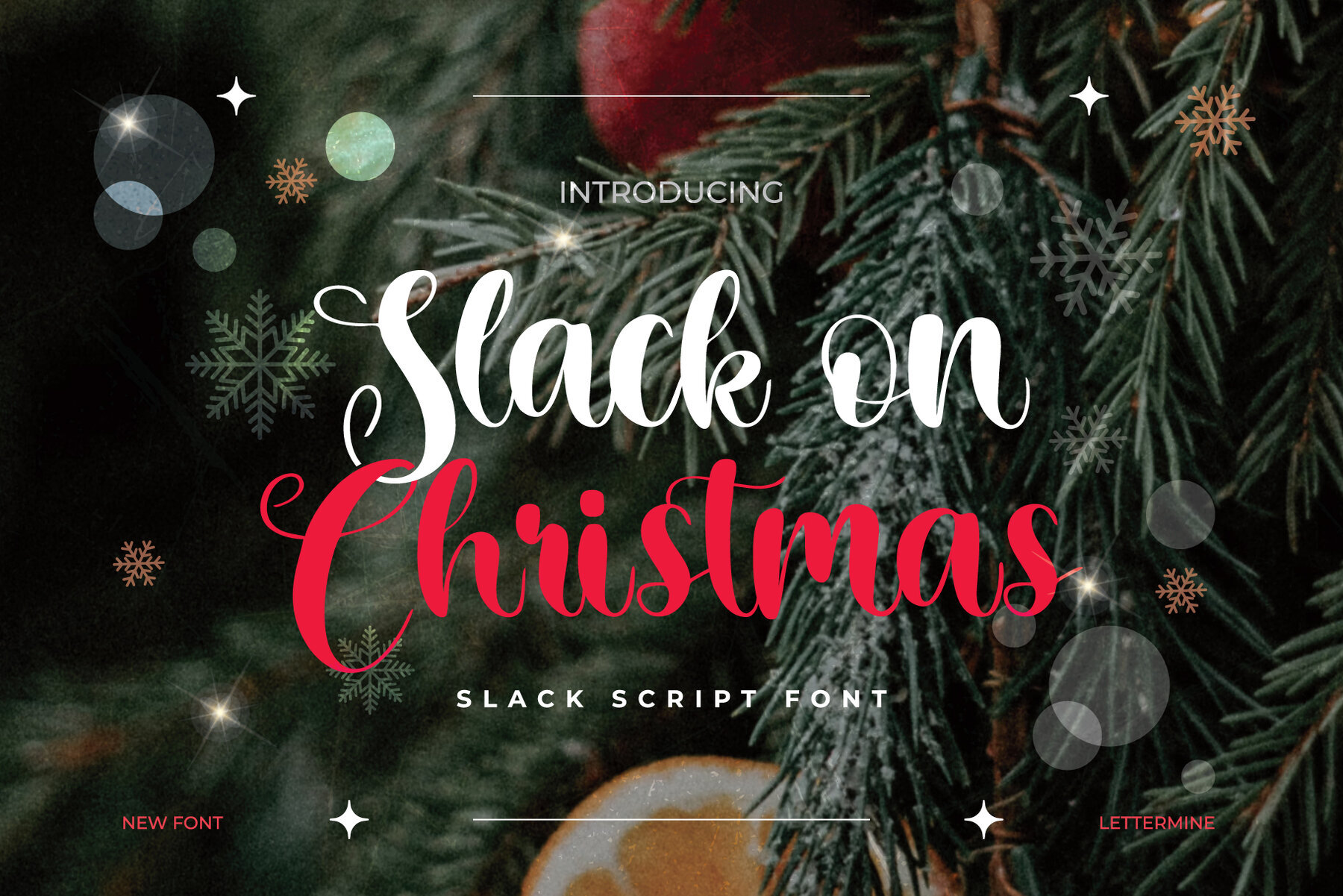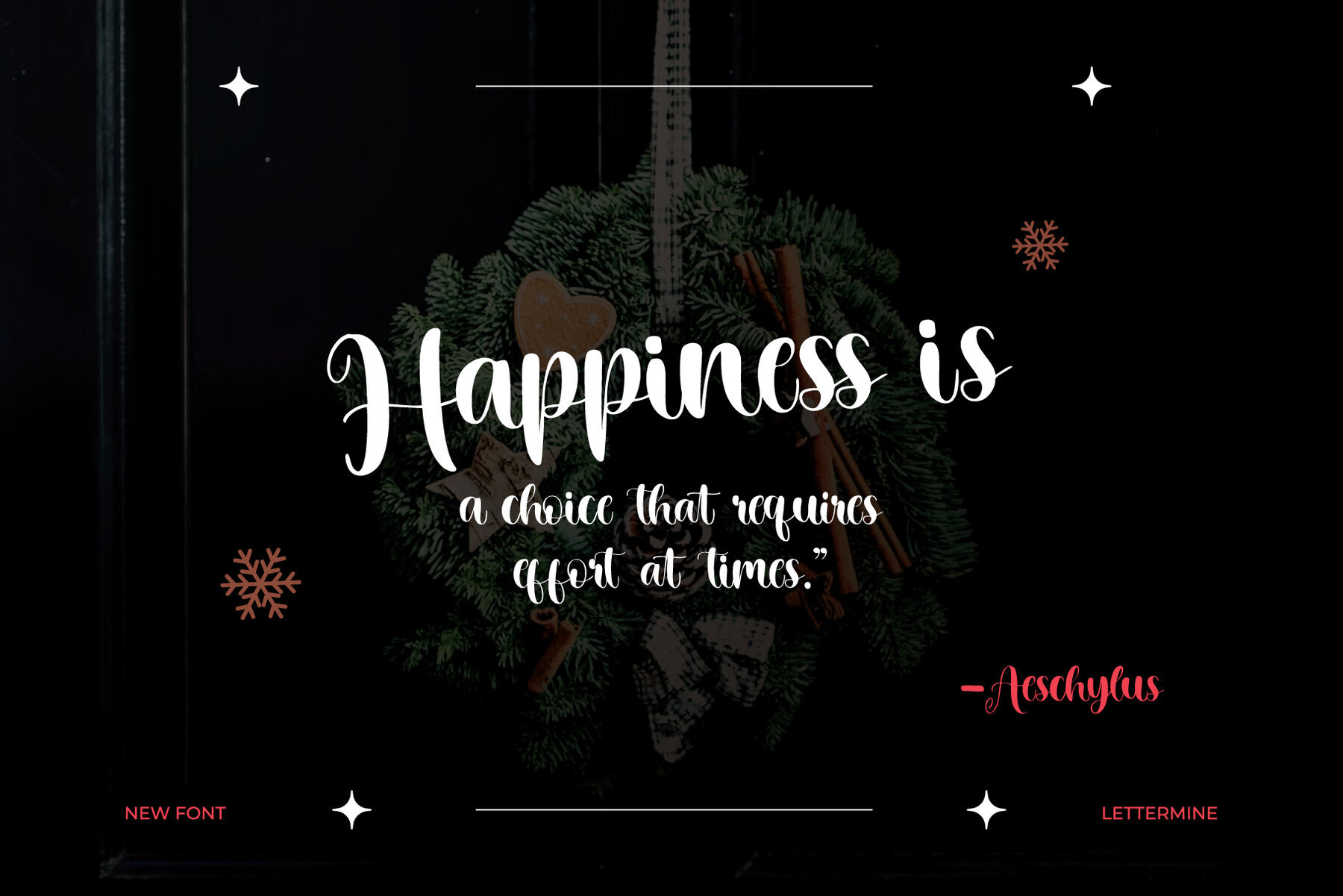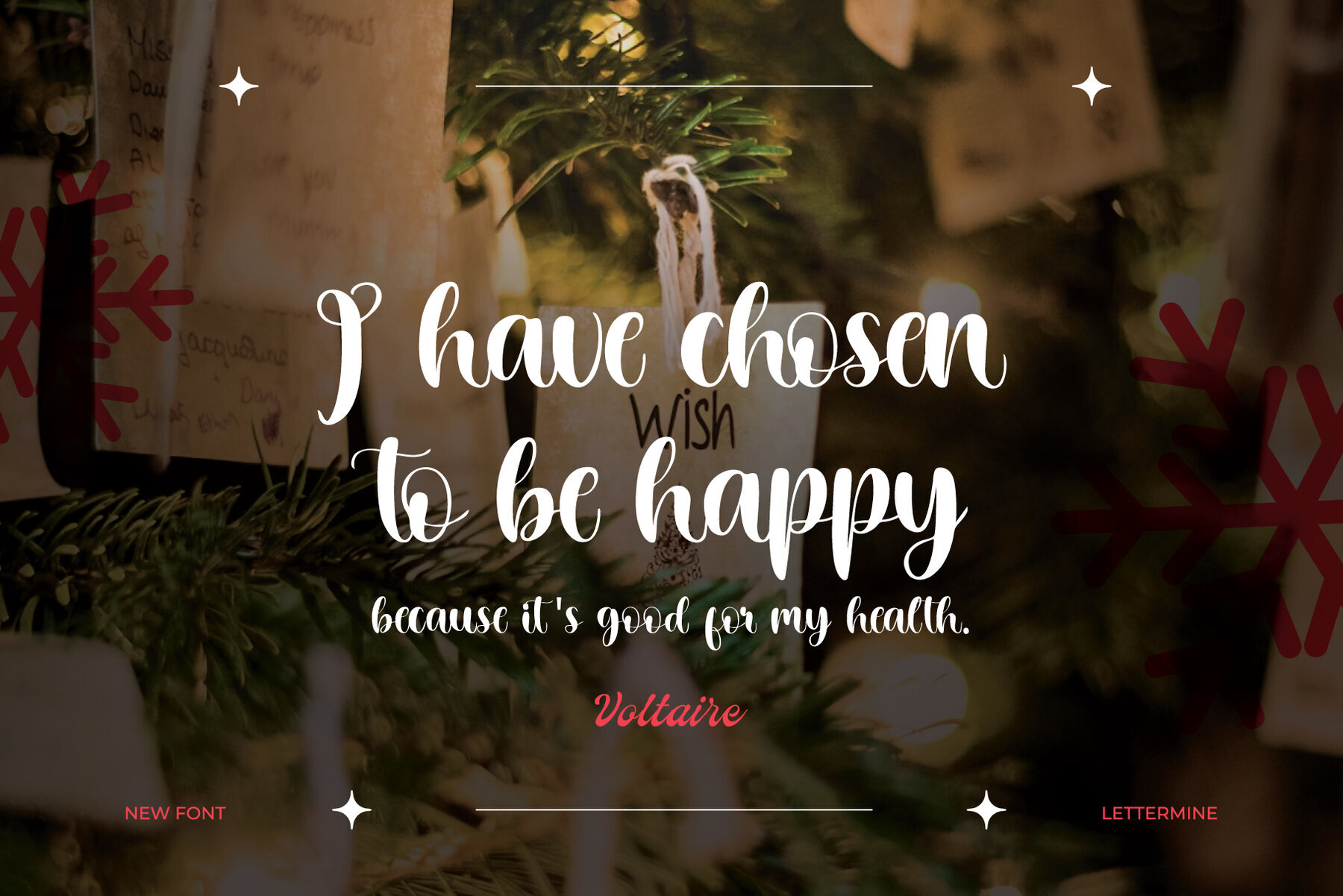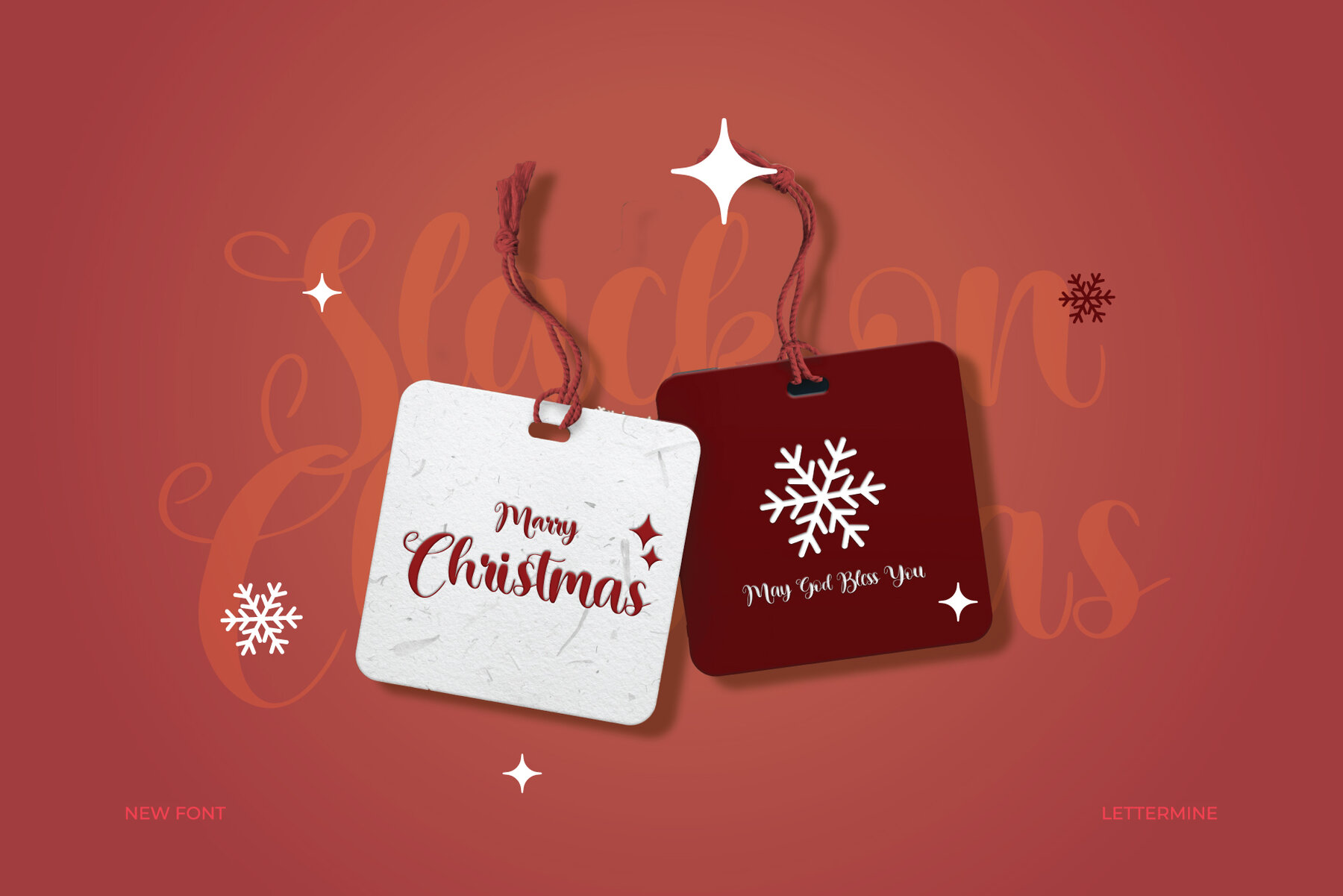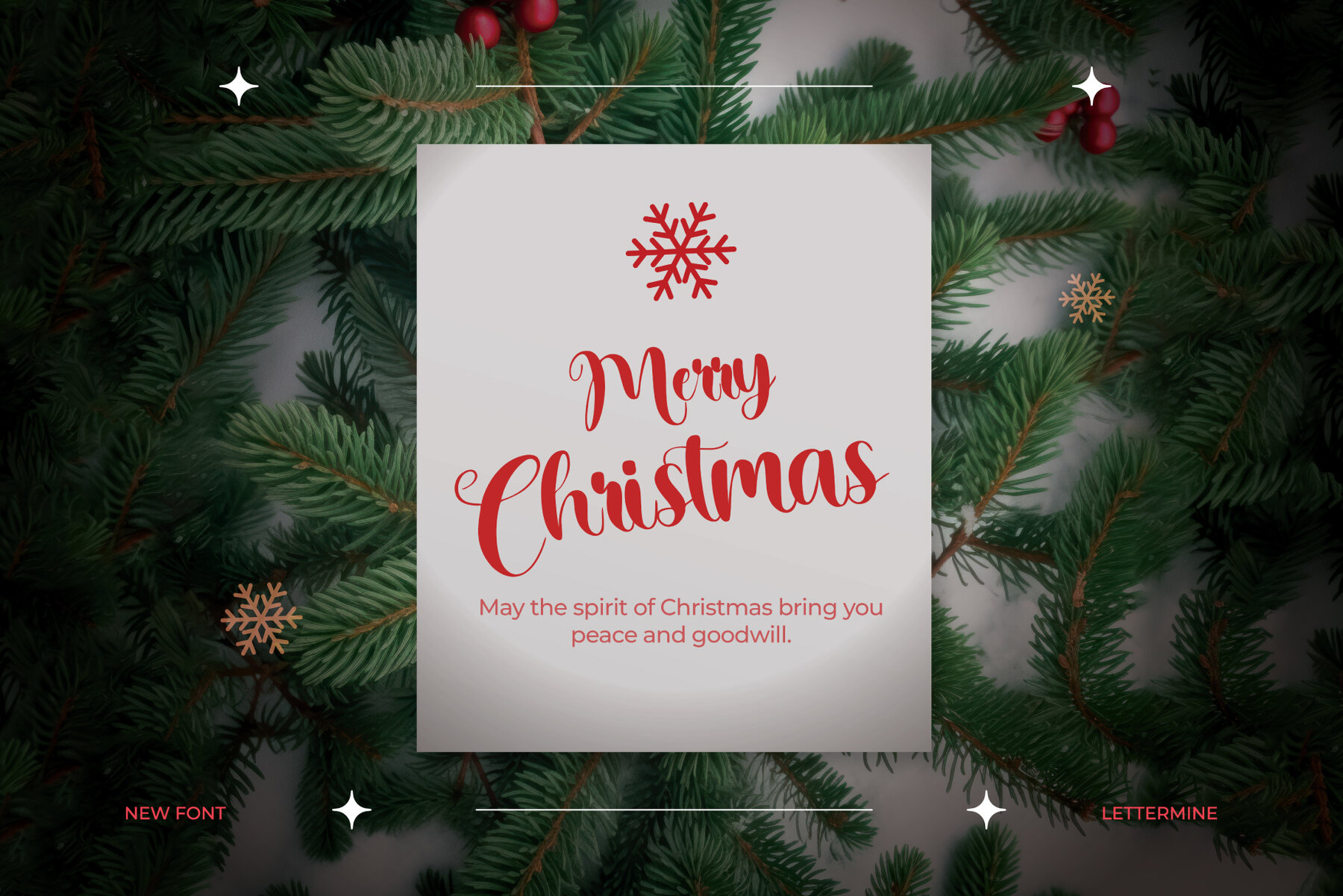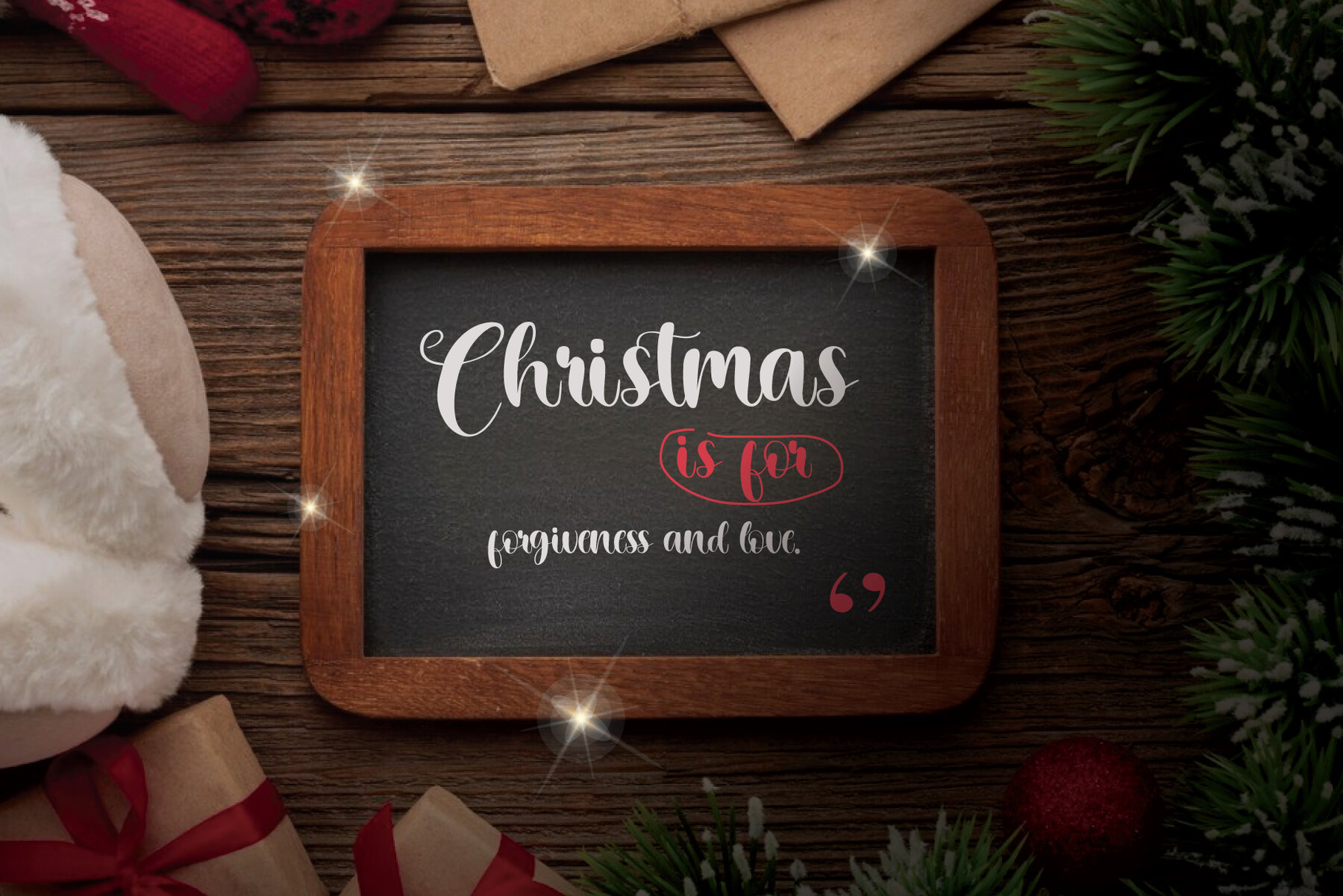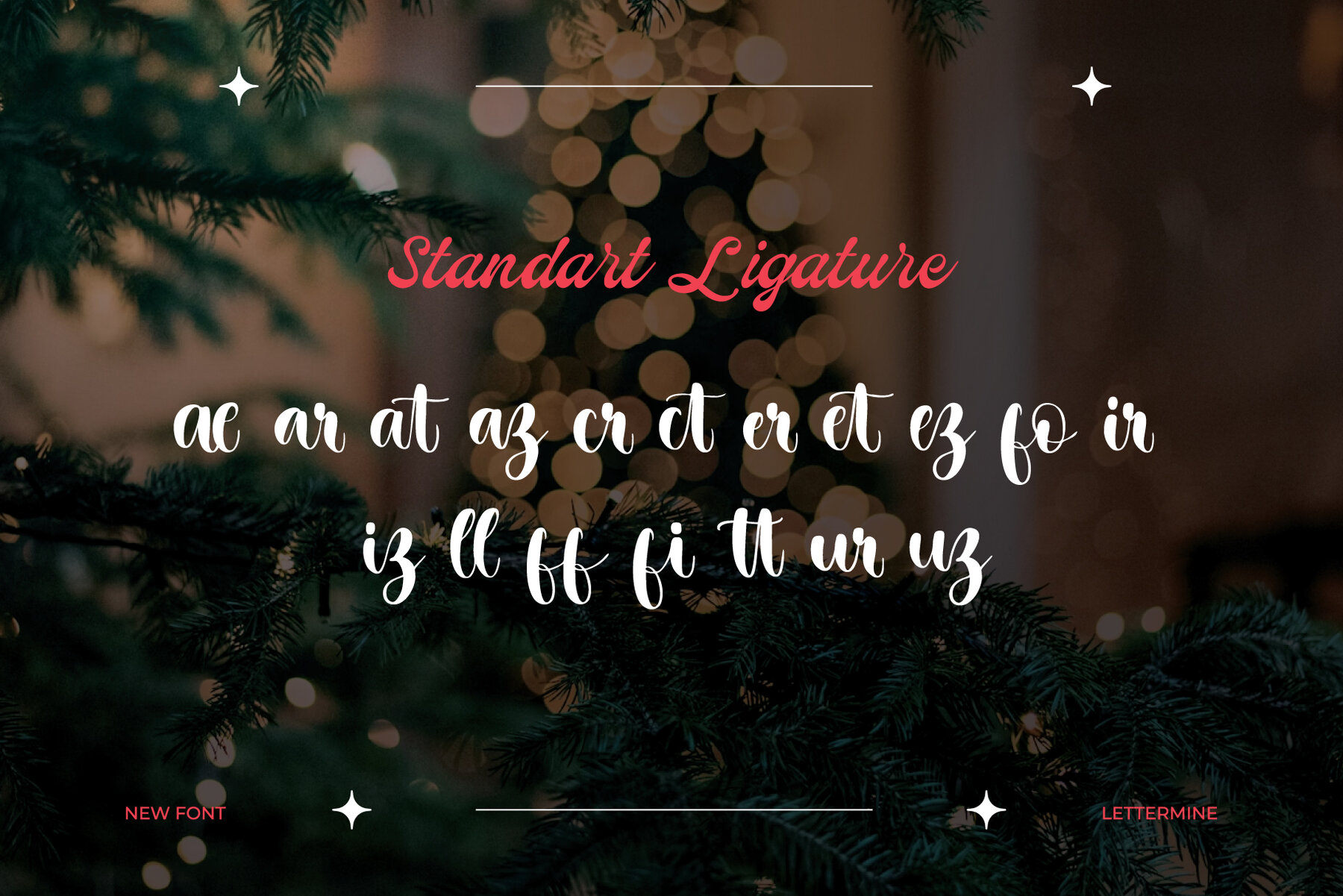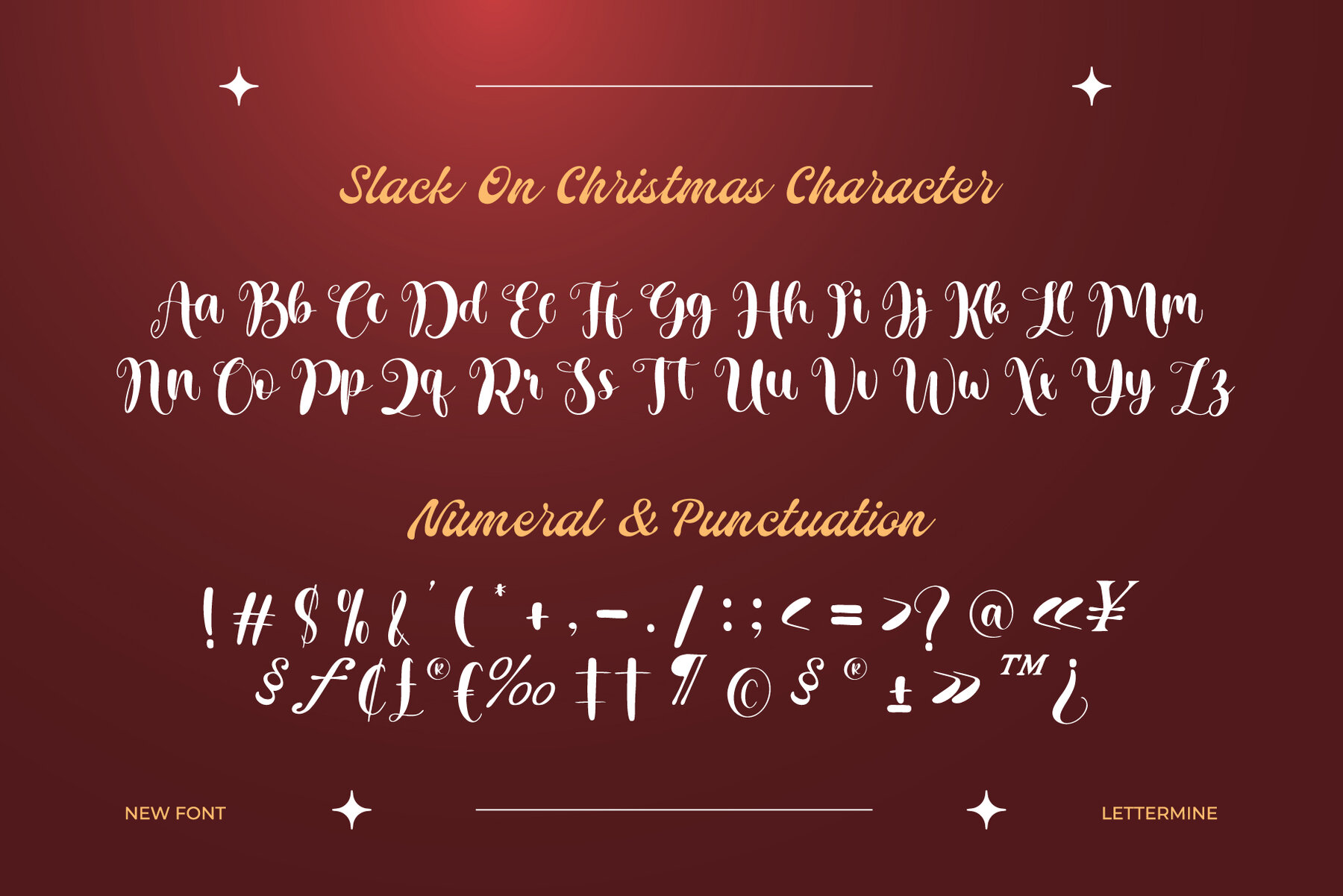
Slack on Christmas Font
Slack on Christmas Regular
Embrace the spirit of the season with this charming Script Handwritten font, crafted to infuse warmth and holiday magic into your creative projects. This font offers a complete set of uppercase and lowercase letters, along with punctuation and ligature features, providing versatility and elegance in every stroke.
Ideal for a variety of festive applications, this font is perfect for creating heartfelt holiday greeting cards, distinctive festive branding, and inviting seasonal invitations. Whether you're designing seasonal social media posts or engaging in DIY craft projects, this font adds a joyful and personal touch to all your holiday designs, ensuring they stand out with a cheerful and welcoming appeal.